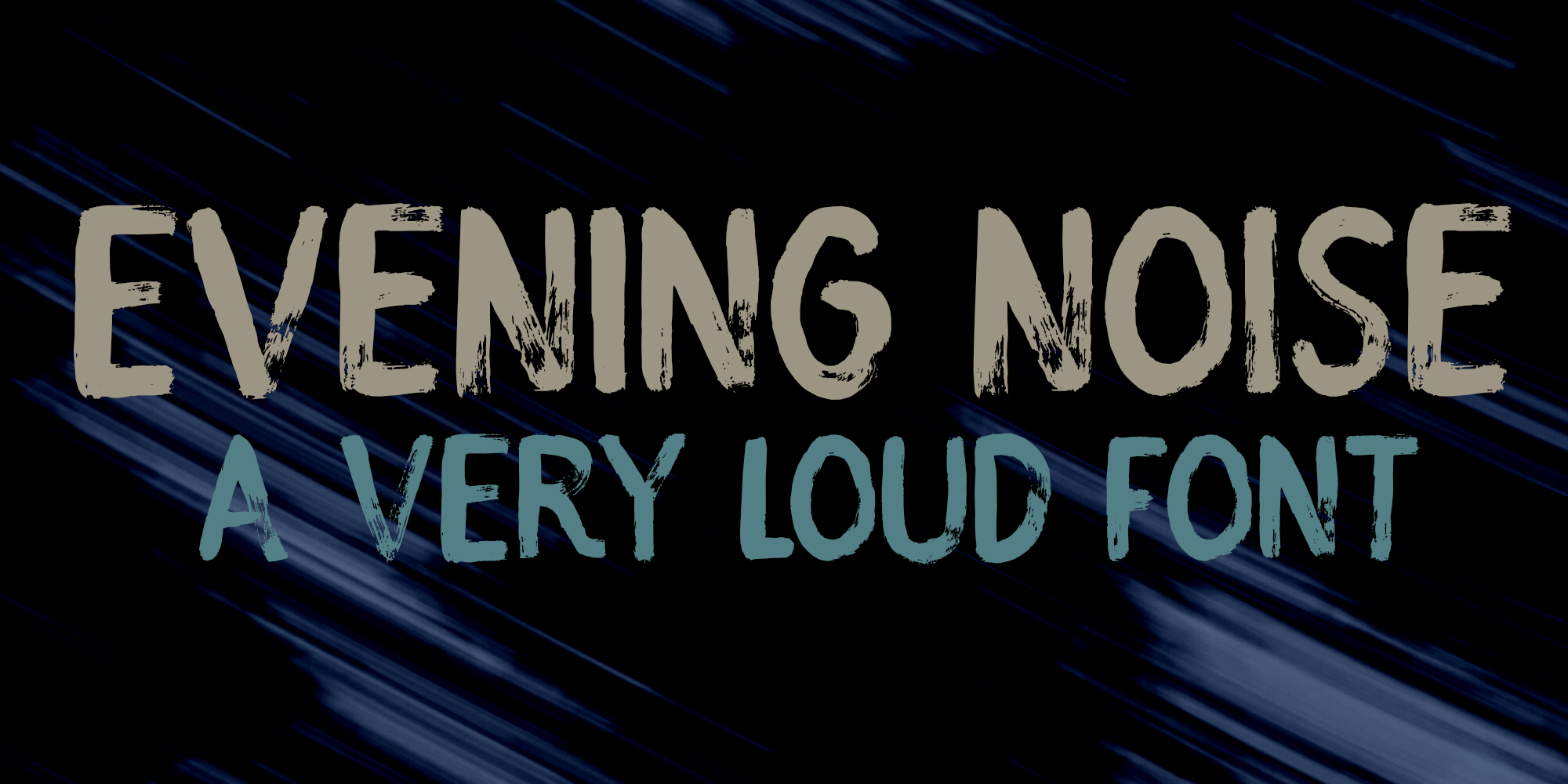
A few weeks ago, I was in Japan, guiding a Dutch tour group. During a stay in a hotel, I noticed a sign that said: ‘NO evening noise!’ As I am always on the look for fun and cool font names, I wrote it down and used it on the font you see here!
Evening Noise is a noisy font: it is big, fat, eroded, grungy… Yet it is also very legible and – in its own way – kind of sophisticated! Evening Noise was made with gouache paint and a stiff brush – hence the detail,
It comes in a regular and an Italic style, both of which will look good on product packaging and book covers.